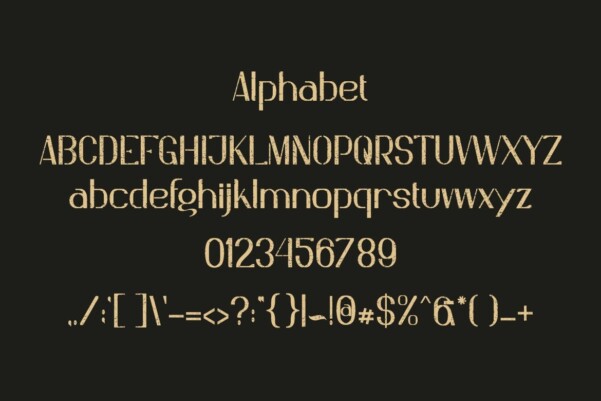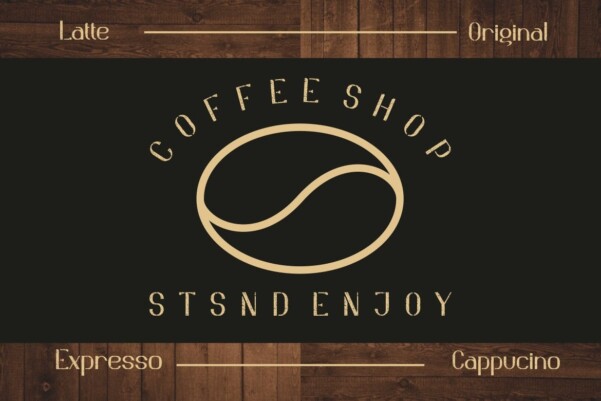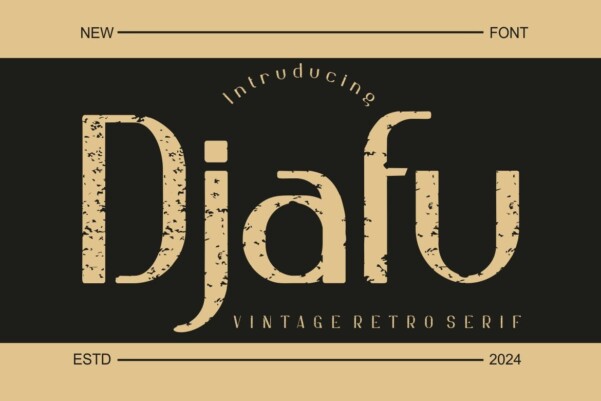
Djafu Font
Djafu Font is a modern and authentic font. Perfect for professional needs and product branding needs. This font is suitable for any branding project like Quotes, Logo, Blog Header, Poster, Banner, Letter, Invitation, Stationery, etc. Designed as a versatile, flexible tool that can be used on a range of projects and media. It is exceptional in a wide range of contexts.